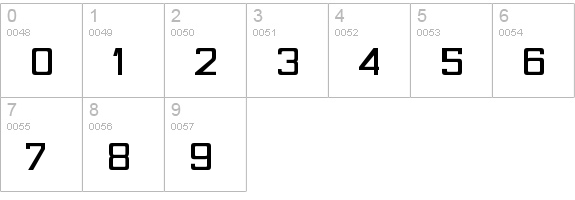
NesobriteBl-Regular Font Details
NesobriteBl-Regular is the standard, neutral variant in the NesobriteBl typeface family \xE2\x80\x94 well suited to general body text, paragraphs, and standard typographic work.
NesobriteBl-Regular is a modern and sleek font that exudes elegance and sophistication. With its clean lines and stylish curves, this font is perfect for a wide range of design projects, from branding to advertising to digital media. The font is versatile and can be used in both print and digital formats, making it a go-to choice for designers looking for a contemporary and professional look. What sets NesobriteBl-Regular apart is not only its aesthetic appeal but also its accessibility - it is completely free! That's right, you can download this font at no cost from FontsMarket.com. Whether you're a professional designer or a hobbyist, NesobriteBl-Regular offers a high-quality, premium look without the premium price tag. Don't miss out on this opportunity to enhance your projects with a top-notch font that won't break the bank. Download NesobriteBl-Regular today and elevate your designs to the next level.